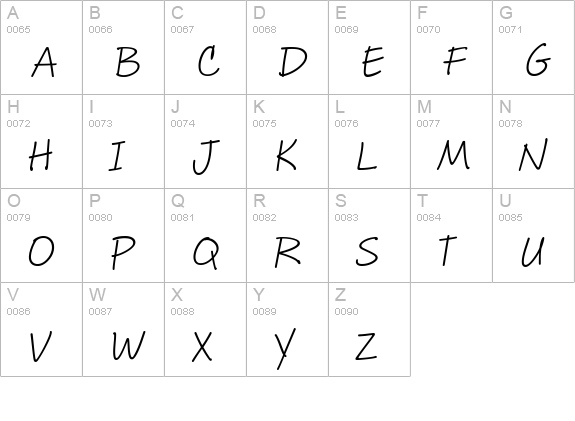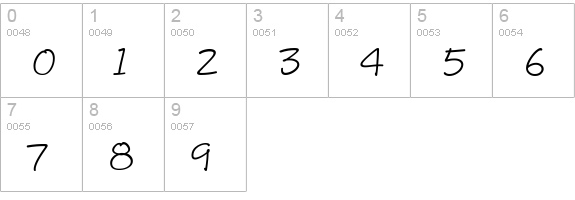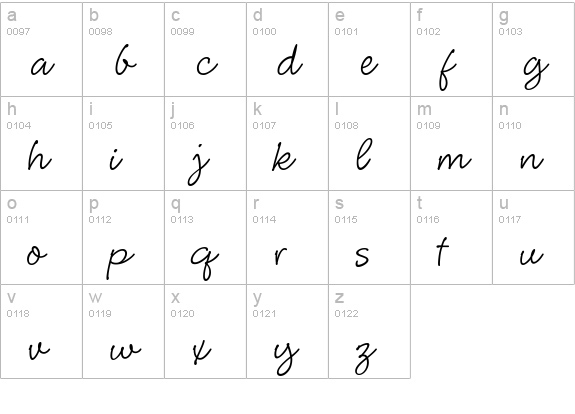
CluffHmk font is a modern and sleek typeface that combines elegance with a touch of playfulness. Its clean lines and stylish curves make it perfect for a wide range of design projects, from logos to invitations to web design. The font features a unique blend of sophistication and creativity, making it a versatile choice for both personal and professional use. What sets CluffHmk font apart is not just its aesthetic appeal, but also the fact that it is available for free download at FontsMarket.com. This means that you can access this high-quality font without any cost, making it a valuable addition to your font library. With CluffHmk font, you can elevate your designs and create eye-catching visuals that stand out from the crowd. Whether you're designing a brand identity, crafting a social media post, or working on a print project, CluffHmk font is sure to impress with its modern charm and timeless appeal. Download this exceptional font for free today and let your creativity shine with CluffHmk font.